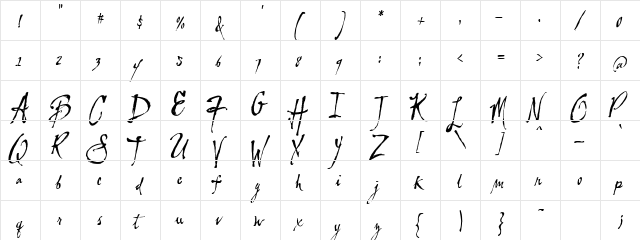
LD Painters Hand Regular
Design Context for LD Painters Hand Typeface
LD Painters Hand brings a calligraphic fluidity to the page — its connecting strokes and expressive curves give it an unmistakably human quality.
Font Pairing: Combine LD Painters Hand with a simple geometric sans for maximum contrast — the tension between flowing curves and clean structure is a classic typographic pairing.
Pro Tip: Use LD Painters Hand for short runs of text — names, titles, or taglines. Extended body copy in script faces tires the eye quickly.